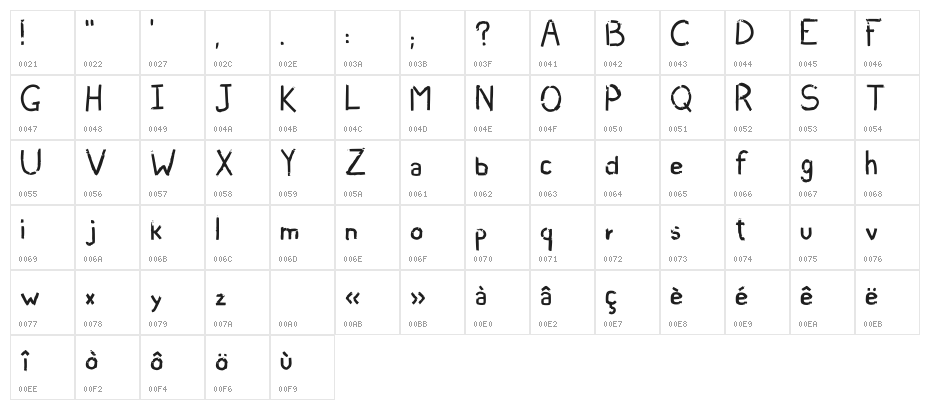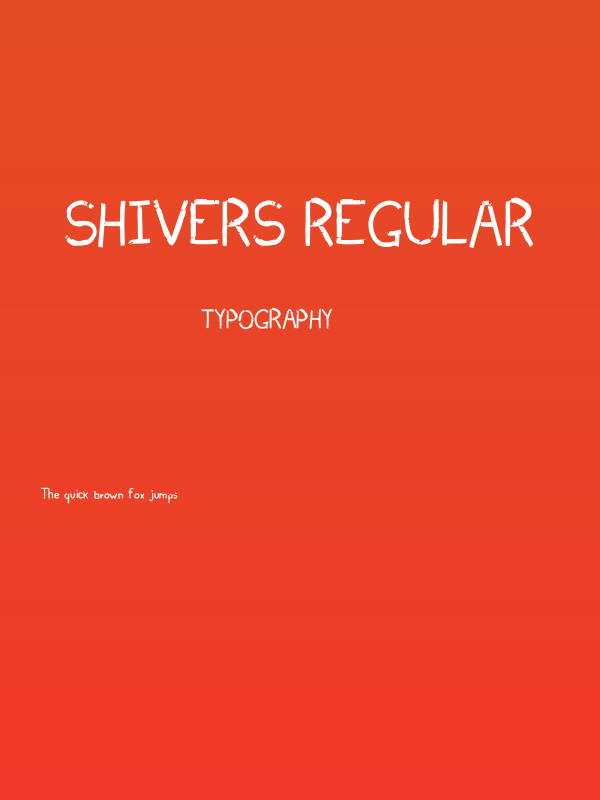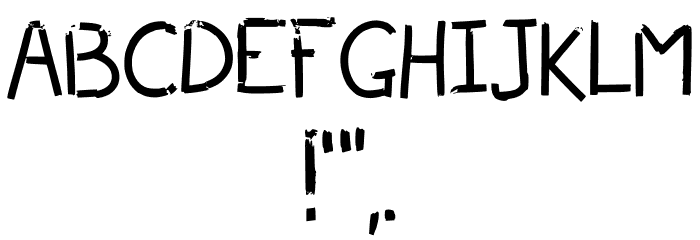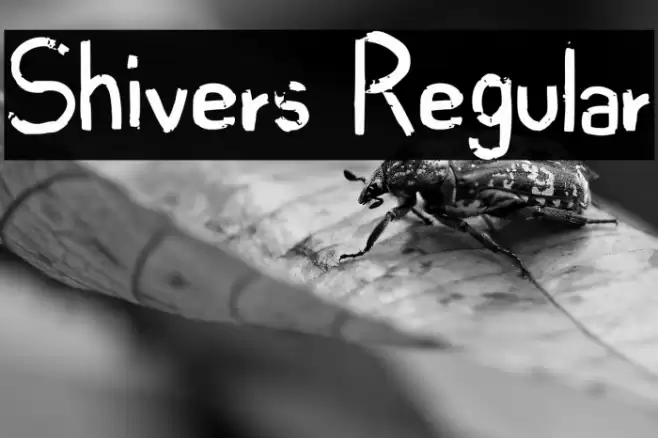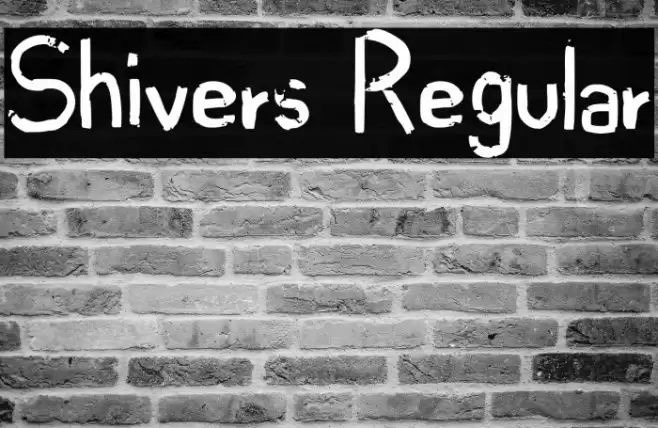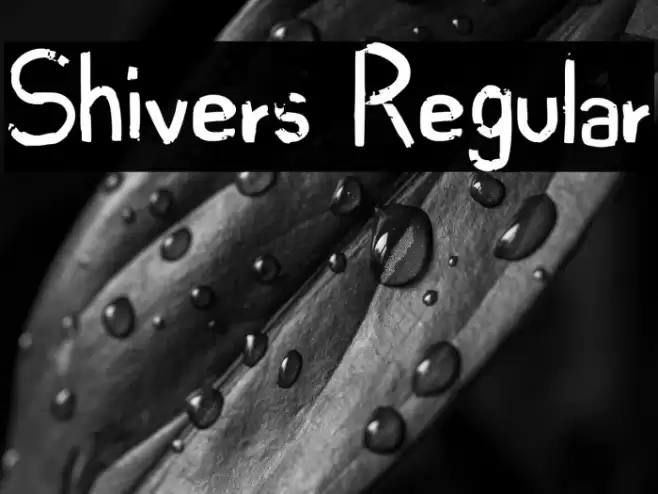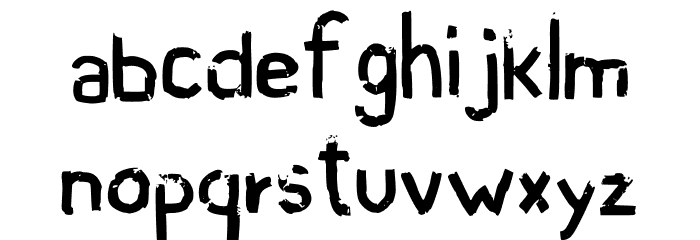
Shivers Regular Font
✎ Messy
| Projets proposés | Ideal for posters, album covers, Halloween themes, and artistic projects requiring a grunge or handmade look. |